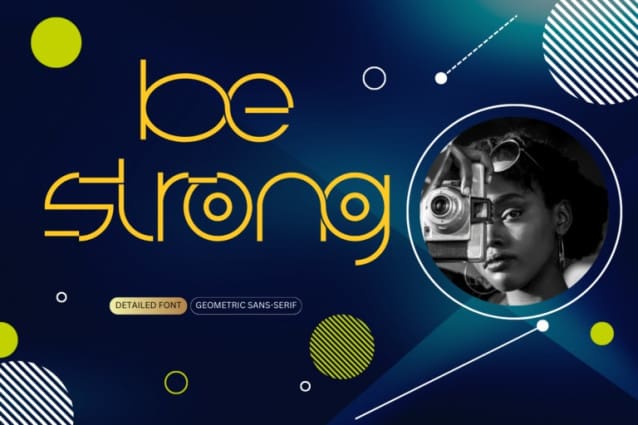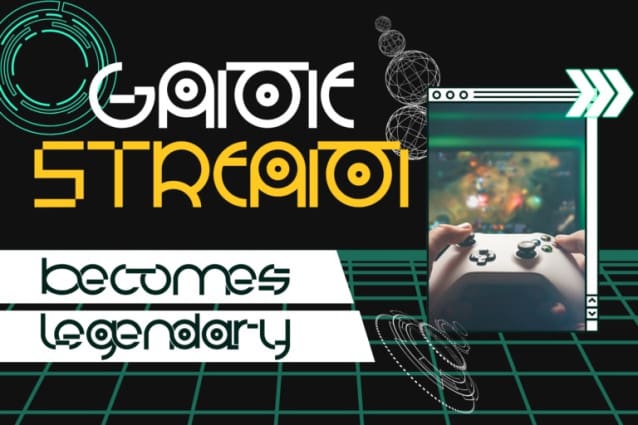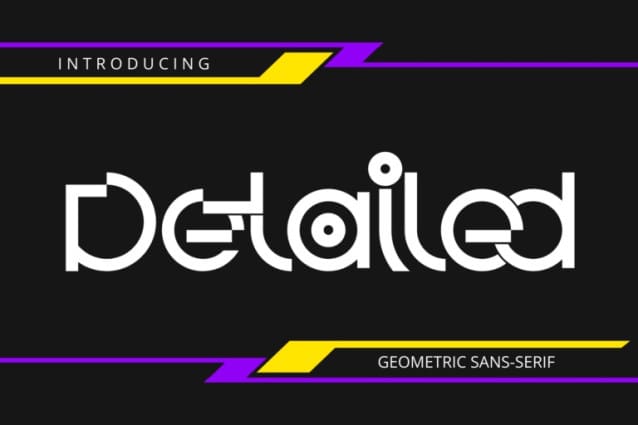
Detailed Artdeco Font
Detailed Artdeco Font is a stunning typeface that belongs to the geometric sans-serif category. It’s a distinctive sans serif font. It features a unique style with variations in uppercase and lowercase letters, adding a touch of originality to your text. Ideal for branding, headlines, and digital content, this font seamlessly combines creativity and functionality, offering a modern yet elegant typographic solution.
Detailed Artdeco was built with OpenType features and includes 100 ligatures, alternate, numbers, punctuation, and it also supports other languages.